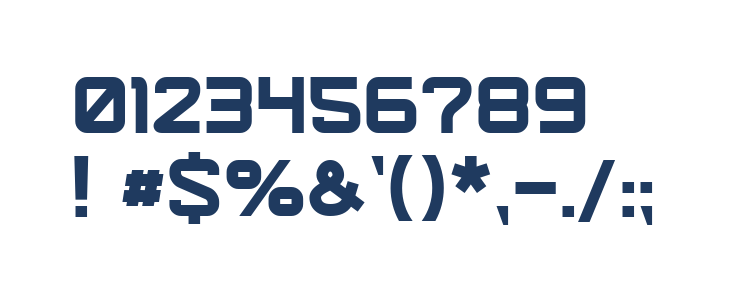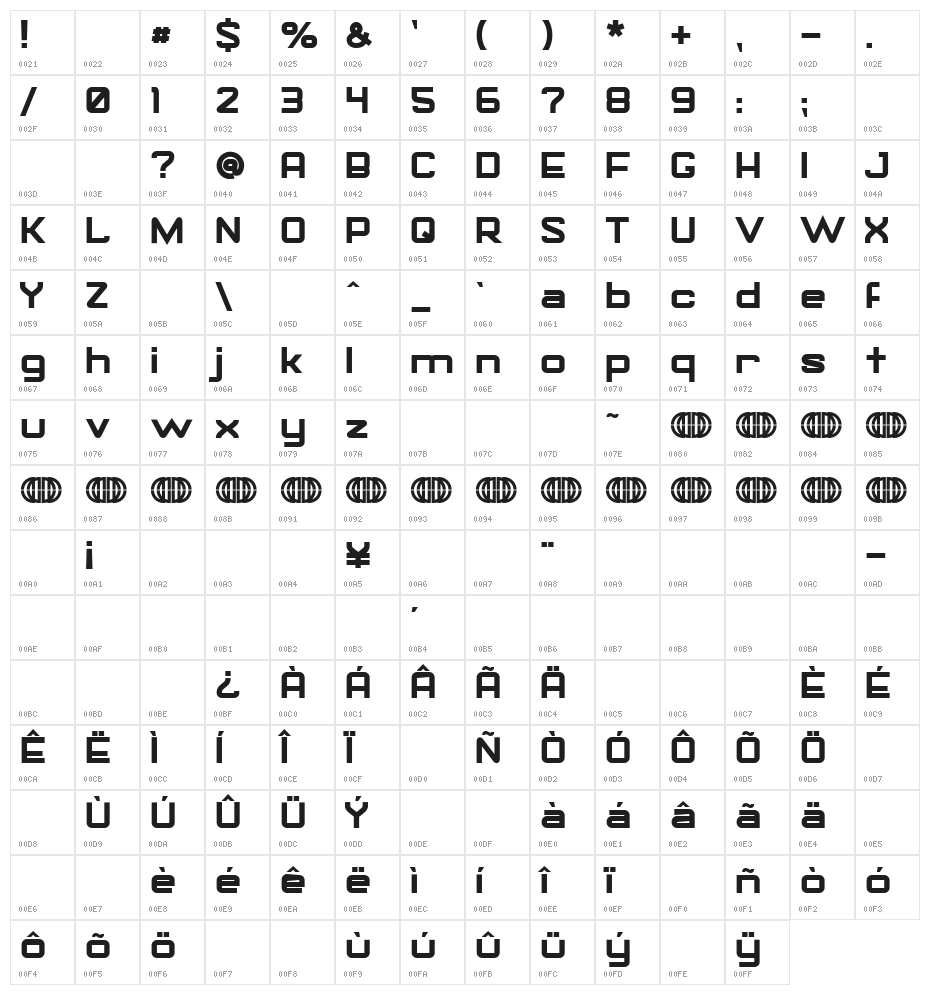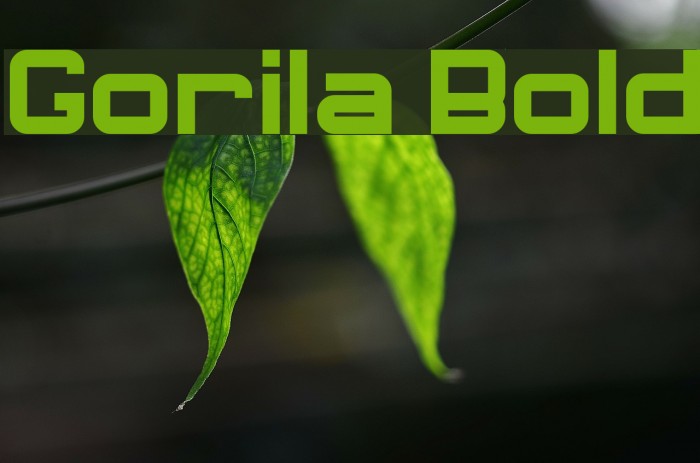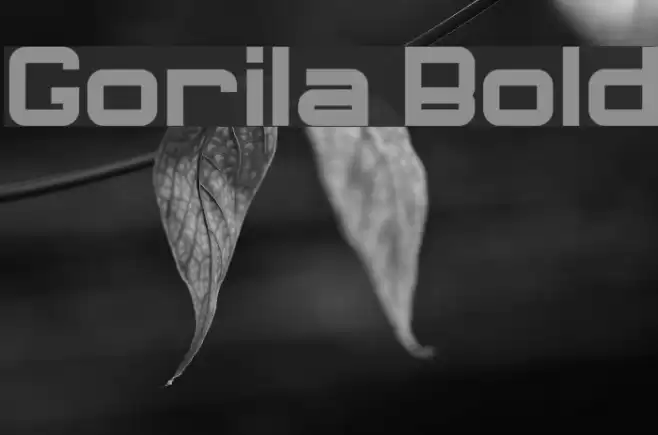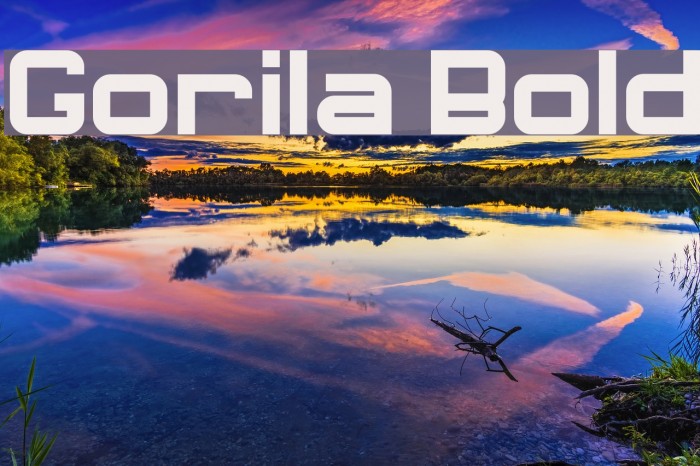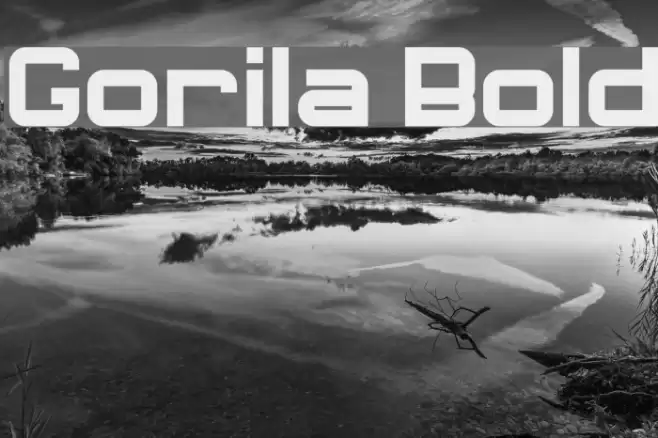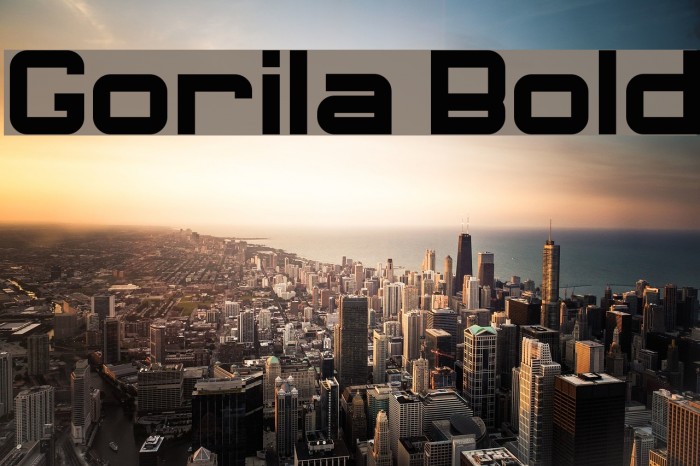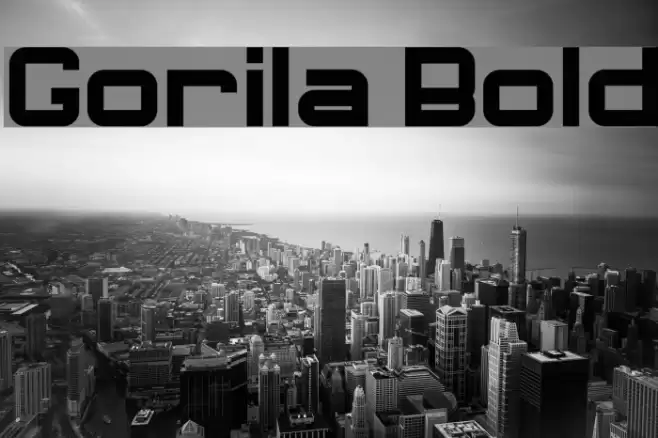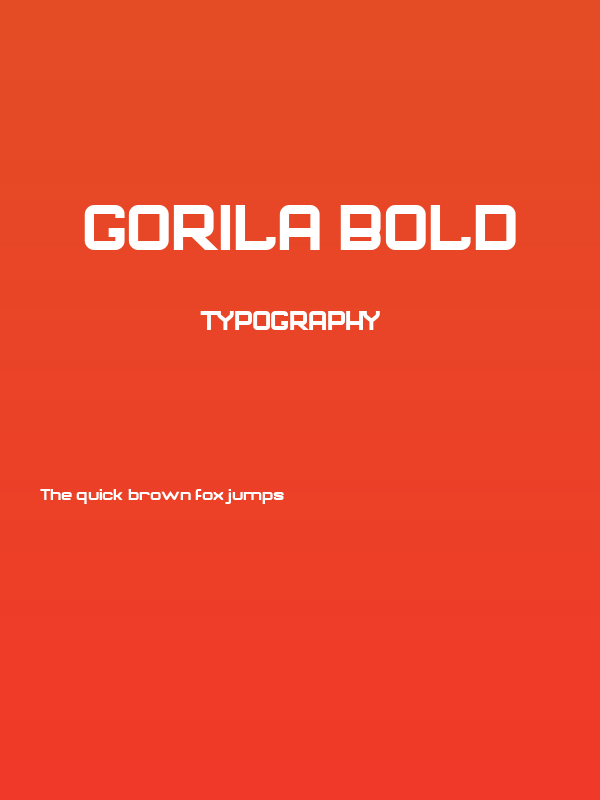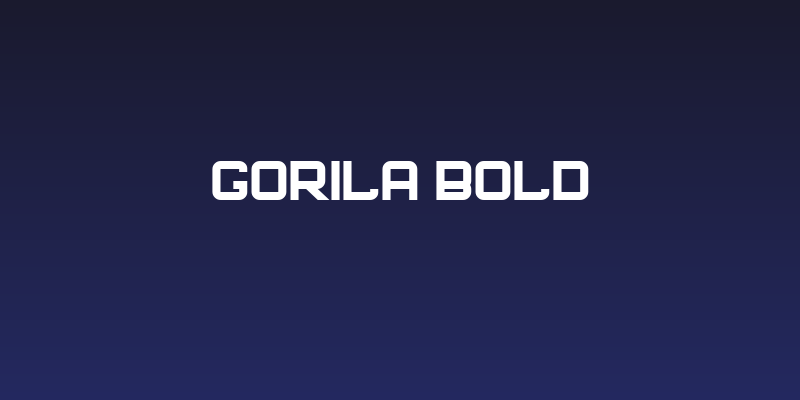
Gorila Bold Font
Gorila Bold Description
This font features a bold and modern design with a geometric structure. The characters are blocky and robust, giving a strong and impactful appearance. The uppercase letters are uniform in height, while the lowercase letters maintain a consistent baseline, enhancing readability. The numerals are equally bold, matching the overall style of the alphabet. The special characters are distinct and clear, making them suitable for various design needs. The font's design is versatile, suitable for both digital and print media, and can be used to convey a sense of strength and modernity.